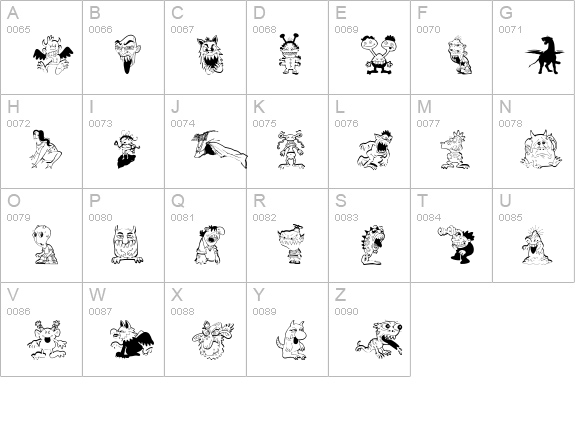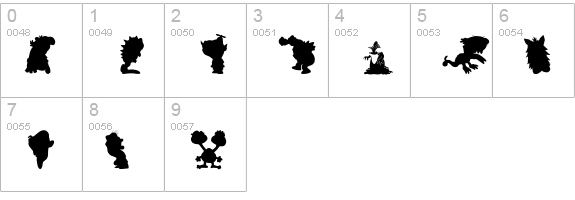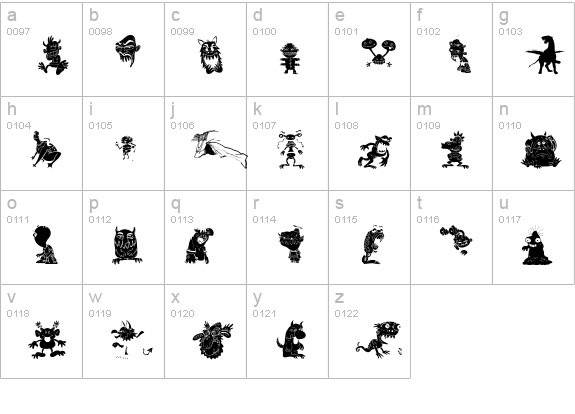
ArtMonsters Font Details
Introducing ArtMonsters font, a whimsical and playful typeface that is perfect for adding a touch of creativity to your designs. This unique font features quirky characters and a hand-drawn style that is sure to make your projects stand out. Whether you're working on invitations, posters, or branding materials, ArtMonsters font will bring a fun and energetic vibe to your work. What's even better is that ArtMonsters font is completely free to download! That's right, you can get your hands on this charming font at FontsMarket.com without spending a dime. With its wide range of glyphs and versatility, ArtMonsters font is suitable for a variety of design projects. So why wait? Download ArtMonsters font today and let your creativity run wild!